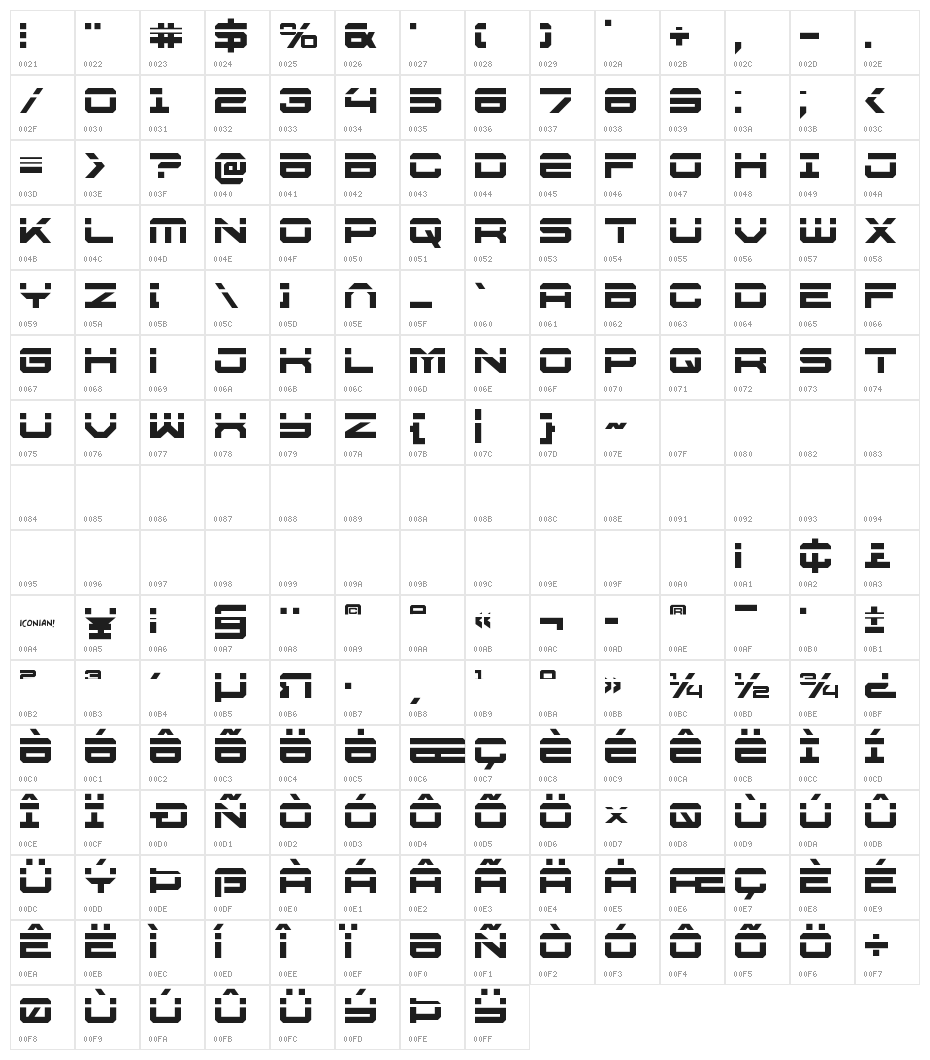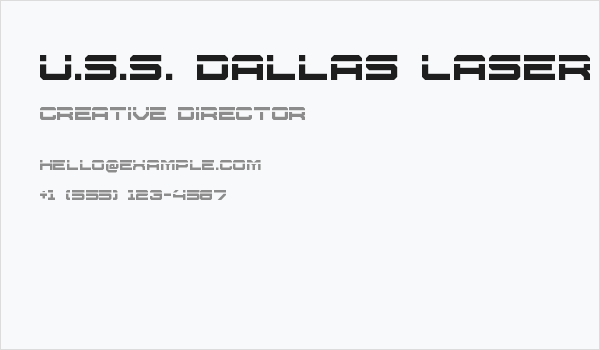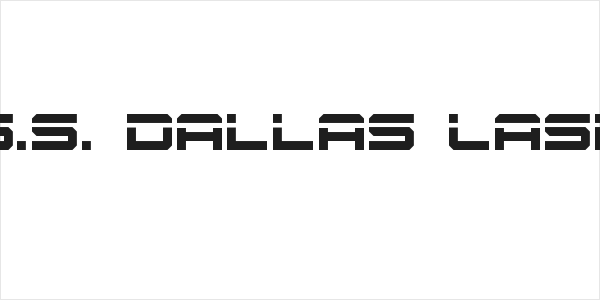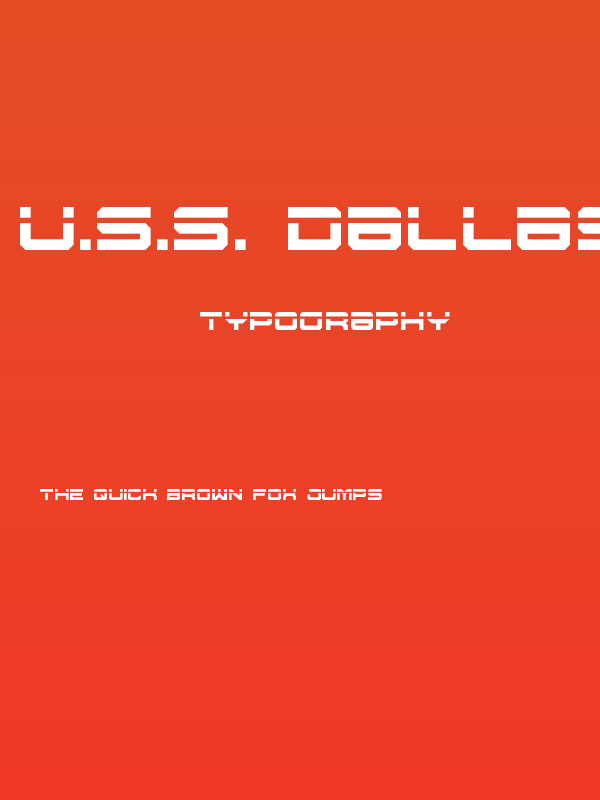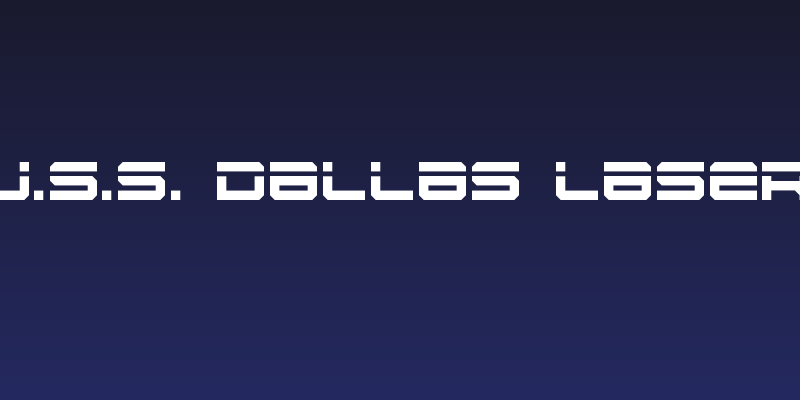
U.S.S. Dallas Laser Font
U.S.S. Dallas Laser Description
This font features a futuristic and geometric design, characterized by its bold and angular letterforms. The characters are constructed with a series of straight lines and sharp angles, giving it a mechanical and industrial feel. The uppercase letters are uniform in height, while the lowercase letters maintain a consistent style, enhancing readability. The numbers and special characters follow the same design principles, ensuring a cohesive look across all glyphs. The font's distinct style makes it suitable for projects that require a modern and edgy aesthetic.
Proposed ProjectsIdeal for sci-fi themed designs, technology branding, video game interfaces, and modern posters.